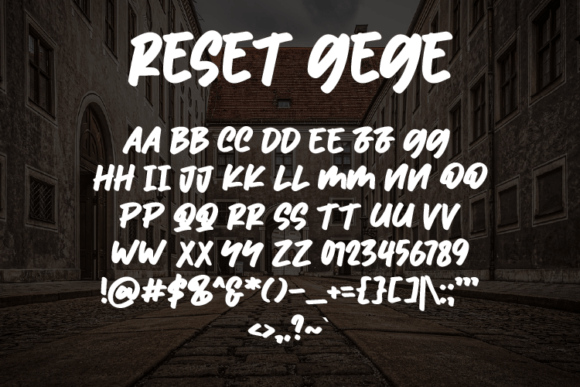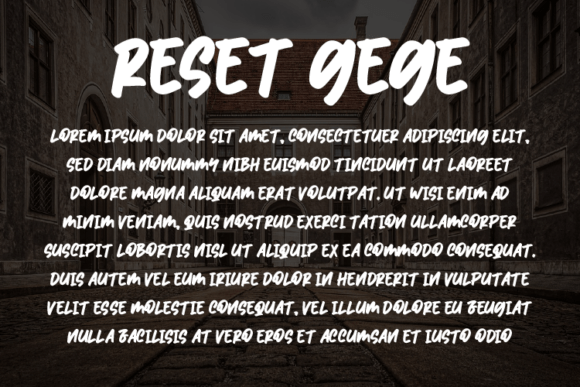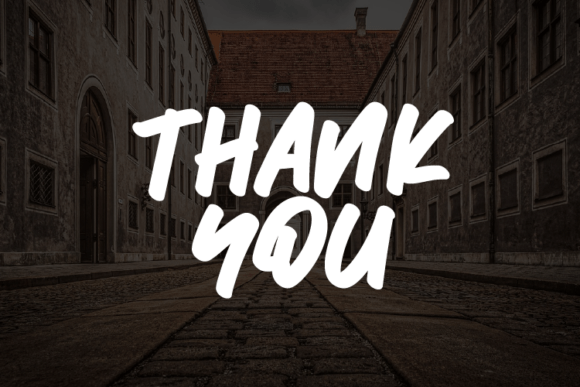
Introduction to Reset Gege Font
Reset Gege is an authoritative and energetic display font designed with a vibrant, hand-painted personality.
The typeface features bold, italicized letterforms characterized by thick, textured strokes that create a sense of forward motion Its organic character, geometry, and slightly distressed edges give the text an immediate narrative energy and a customized, artisanal feel.